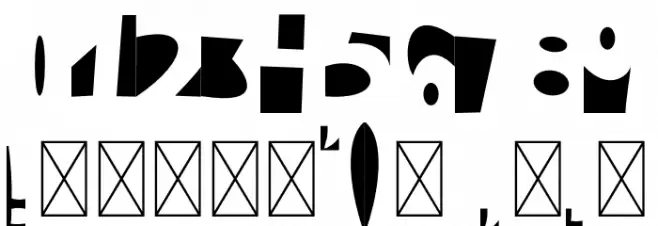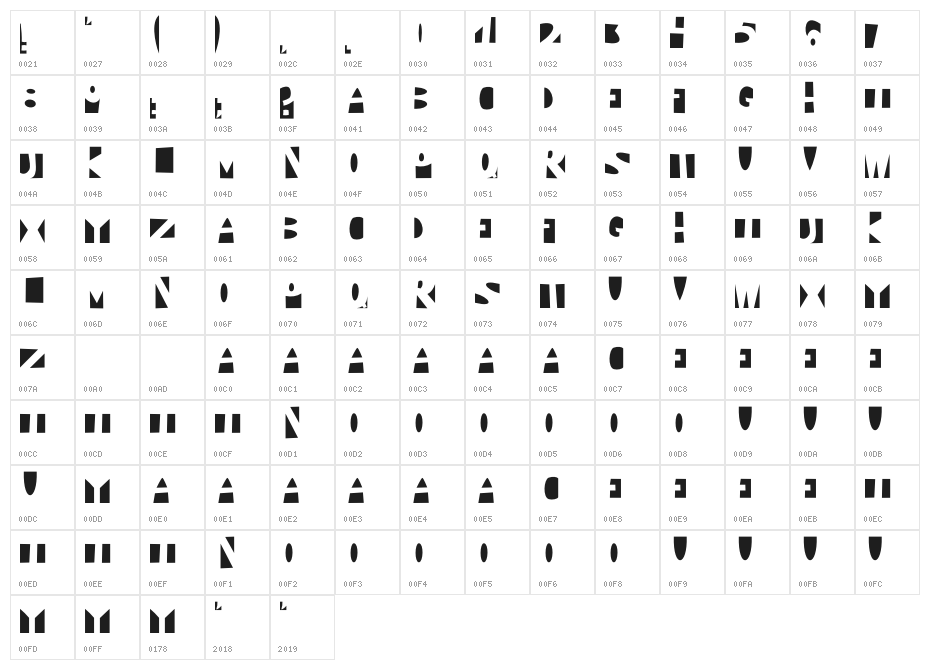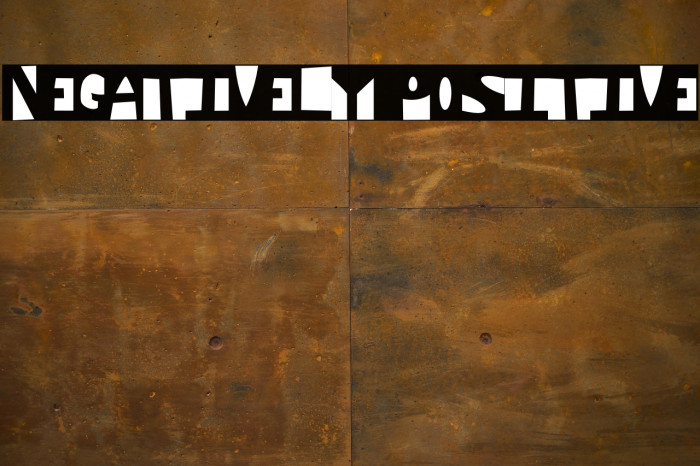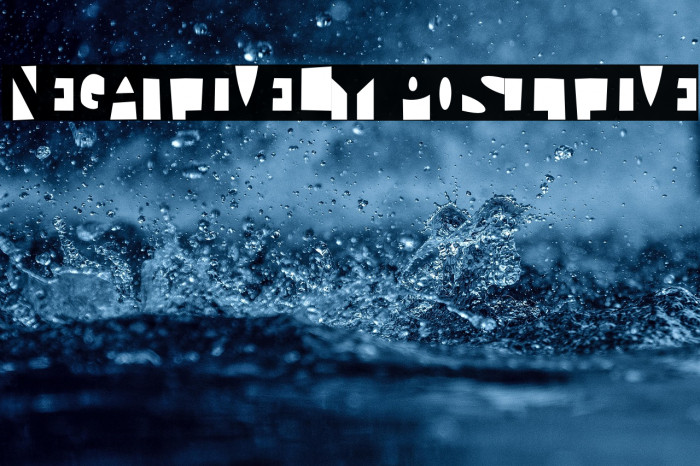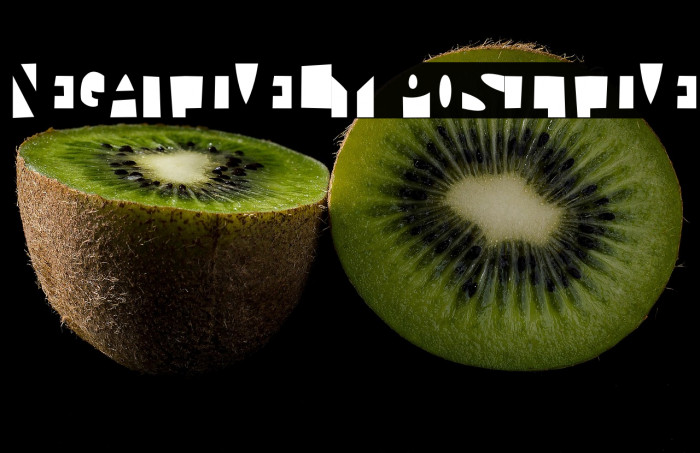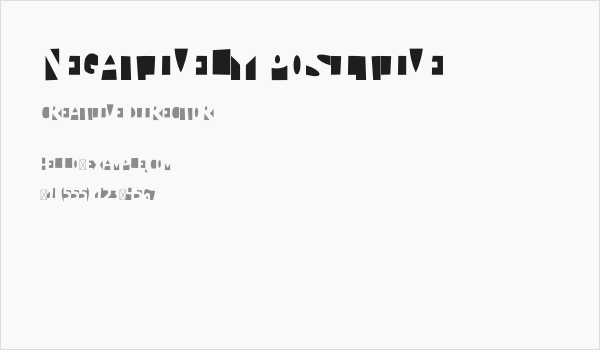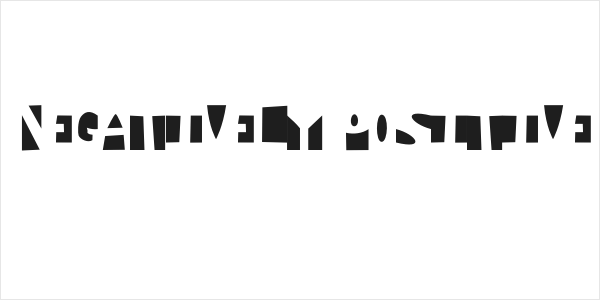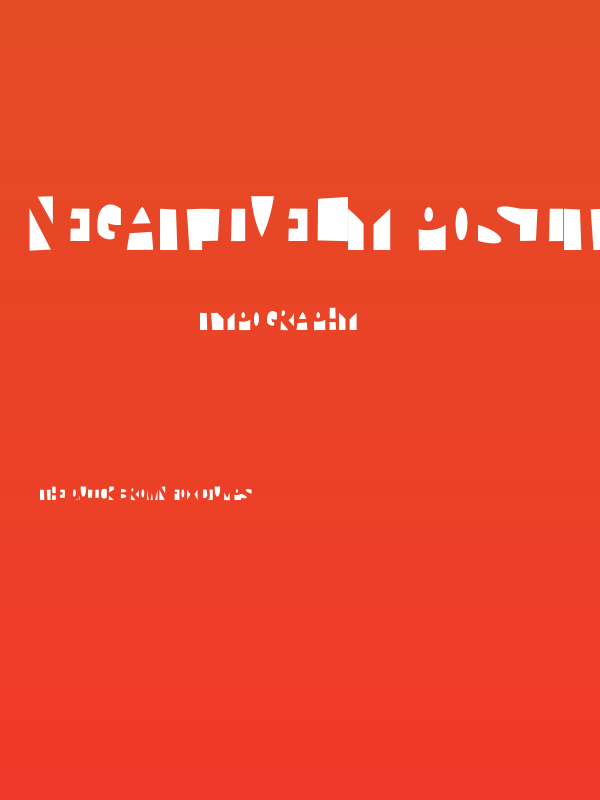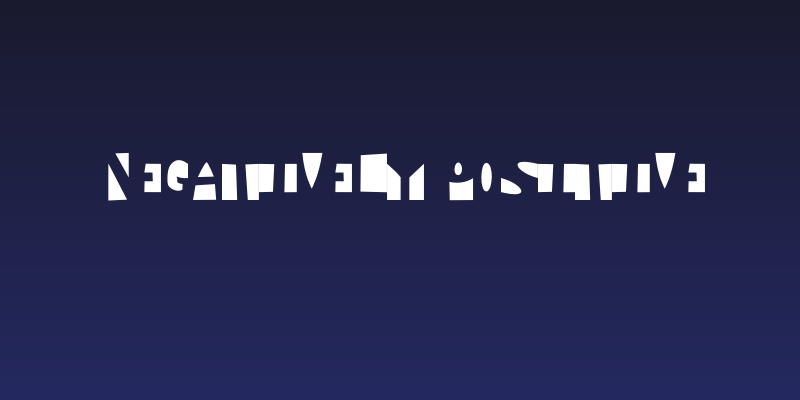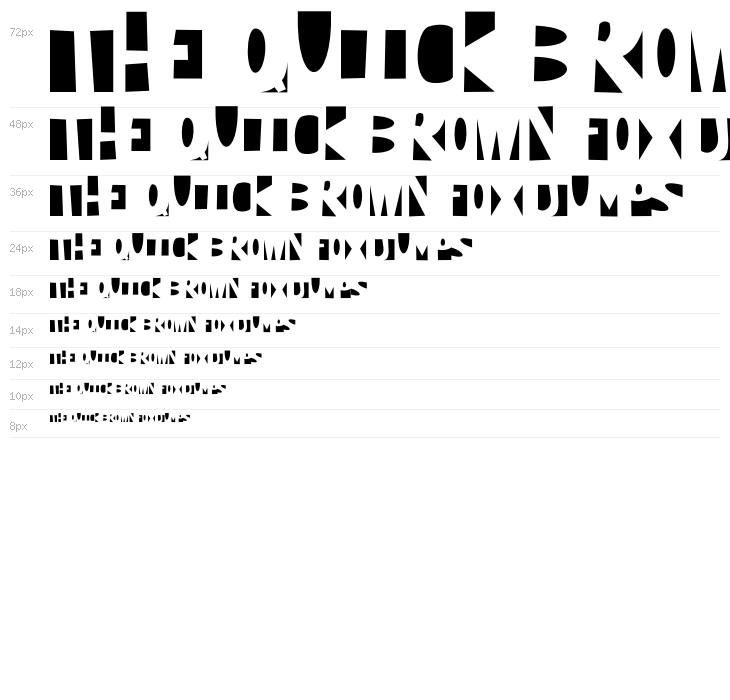
Negatively Positive Font
Negatively Positive Description
This font features a highly abstract and geometric design, characterized by bold, solid shapes that form each letter. The letters are constructed using a combination of sharp angles and curves, creating a striking visual impact. The uppercase and lowercase letters maintain a consistent style, with each character appearing as a unique geometric puzzle piece. The numbers and special characters follow the same design principles, adding to the overall cohesiveness of the font. The use of negative space is prominent, giving the font a modern and artistic feel. This font is ideal for projects that require a bold and unconventional aesthetic.
| Proposed Projects | Ideal for modern art posters, avant-garde branding, and creative editorial design. |